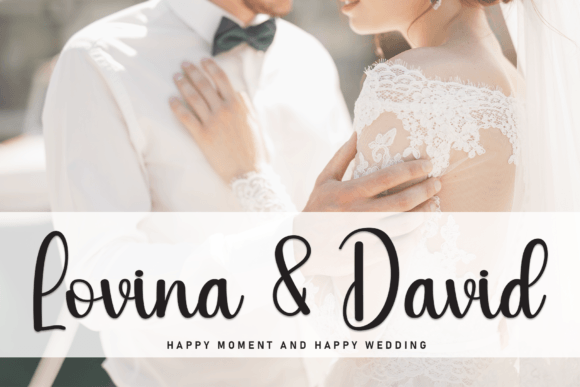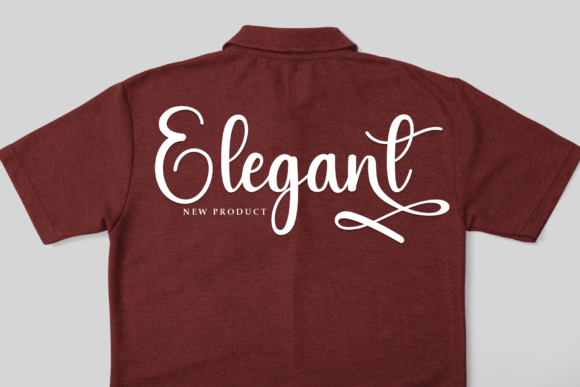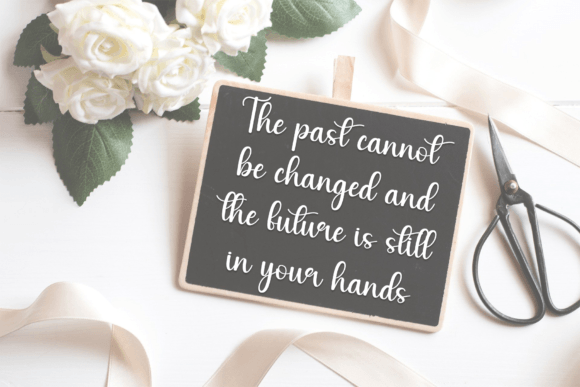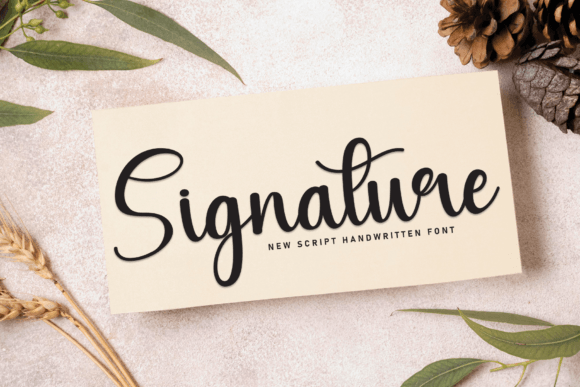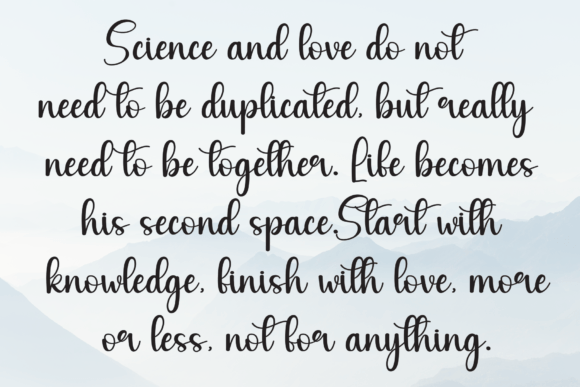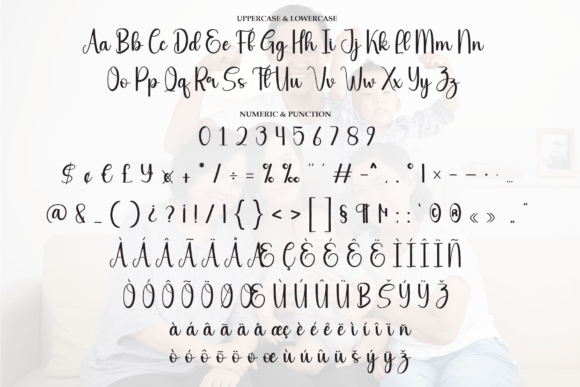
Introducing Family Font: The Sweet and Friendly Handwritten Display Font
Are you looking for a font that can add a touch of warmth and personality to your designs? Look no further than Family Font, a sweet and friendly handwritten display font that’s perfect for creating eye-catching wedding invitations, cards, and other creative projects. In this article, we’ll take a closer look at what makes Family Font so special and why it’s a must-have for designers and crafters.
A Font that’s Cute and Fun
Family Font is a beautifully crafted handwritten display font that’s designed to bring a smile to your face. Its cute and fun design makes it ideal for adding a personal touch to your designs, whether you’re creating wedding invitations, birthday cards, or any other type of project that requires a bit of whimsy. With Family Font, you can add a dash of personality to your designs and make them stand out from the crowd.
Ideal for Wedding Invitations and Cards
Wedding invitations and cards are a great way to showcase the beauty of Family Font. This font is specifically designed to add a touch of romance and elegance to your wedding designs, making it perfect for creating stunning wedding invitations, save-the-date cards, and thank-you notes. With Family Font, you can create beautiful and memorable wedding stationery that your loved ones will treasure for years to come.
What You Can Do with Family Font
With Family Font, the design possibilities are endless. Here are just a few ideas to get you started:
- Create stunning wedding invitations and save-the-date cards
- Design beautiful birthday cards and party invitations
- Add a personal touch to your gift tags and gift wrapping
- Create eye-catching posters and flyers for events and promotions
- Use it for your blog or website headers to add a touch of personality
Why Designers and Crafters Love Family Font
Designers and crafters love Family Font for many reasons. Here are just a few:
- It’s easy to use: Family Font is a straightforward font to use, even for those who are new to design.
- It’s versatile: Family Font can be used for a wide range of projects, from wedding invitations to posters and flyers.
- It’s unique: Family Font has a distinctive look that sets it apart from other fonts.
- It’s high-quality: Family Font is a professionally designed font that’s been crafted with care and attention to detail.
Family Font is a sweet and friendly handwritten display font that’s perfect for adding a touch of personality to your designs. With its cute and fun design, PUA encoding, and versatility, it’s a must-have for designers and crafters. Whether you’re creating wedding invitations, cards, or any other type of project, Family Font is sure to bring a smile to your face and make your designs stand out from the crowd.